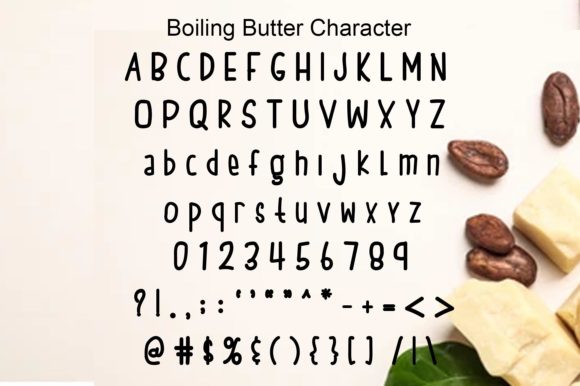
The Ultimate Guide to Boiling Butter Font: Elevate Your Designs with this Charming Handwritten Font
I’ll never forget the time I was working on a DIY project for a client’s wedding invitation. I had the design concept nailed, but something was missing – the perfect font. I scoured the internet, tried out dozens of fonts, and still, nothing seemed quite right. That’s when I stumbled upon Boiling Butter, a cute and casual handwritten font that instantly elevated my design. In this article, I’ll share my love for Boiling Butter, its features, and how to make the most of it in your designs.
An Honest Review of Boiling Butter Font
What I Love About Boiling Butter ✨
• ✅ Unique and quirky personality: Boiling Butter has a distinct, hand-crafted feel that adds a touch of warmth to any design.
• ✅ Versatile: This font is perfect for a wide range of projects, from logos and headings to t-shirts, letterhead, and signage.
• ✅ Elegant yet casual: Boiling Butter strikes the perfect balance between sophistication and playfulness, making it suitable for various audiences and contexts.
• ✅ Easy to read: Despite its whimsical nature, Boiling Butter remains clear and legible, even at smaller font sizes.
• ⚠️ Limited use in formal contexts: Boiling Butter’s casual nature might not make it the best fit for very formal or traditional designs, such as corporate reports or academic papers.
• ⚠️ May not work well in long blocks of text: While Boiling Butter is great for headings and short paragraphs, it might become tiring to read in longer blocks of text.
A Practical Guide to Using Boiling Butter in Your Designs
The Story Behind Boiling Butter
Boiling Butter was designed with the intention of creating a font that’s both playful and elegant. The designer aimed to capture the feeling of handwritten notes and letters, while making it suitable for a wide range of design applications. The result is a font that’s perfect for adding a personal touch to your designs.
Q: What type of designs is Boiling Butter best suited for?
A: Boiling Butter is versatile and can be used for a wide range of designs, including logos, headings, t-shirts, letterhead, signage, labels, and more.
Q: Is Boiling Butter suitable for body text?
A: While Boiling Butter is easy to read, it’s best suited for headings and short paragraphs. For longer blocks of text, a more traditional font might be more suitable.